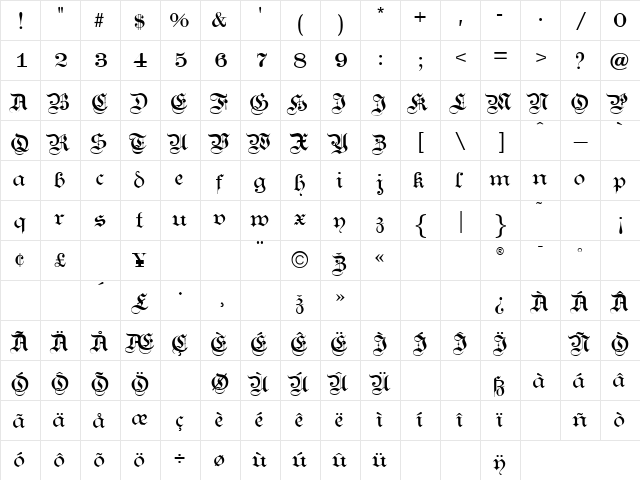
Kanzlei Light Normal
Design Context for Kanzlei Light Typeface
Kanzlei Light is a composed and adaptable typeface that performs quietly and consistently across a wide range of design contexts. The delicate stroke weight brings airiness and refinement to layouts.